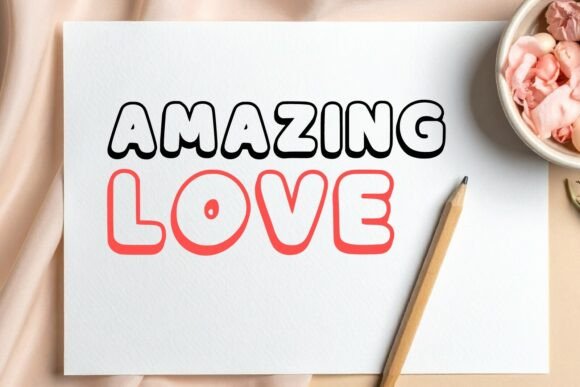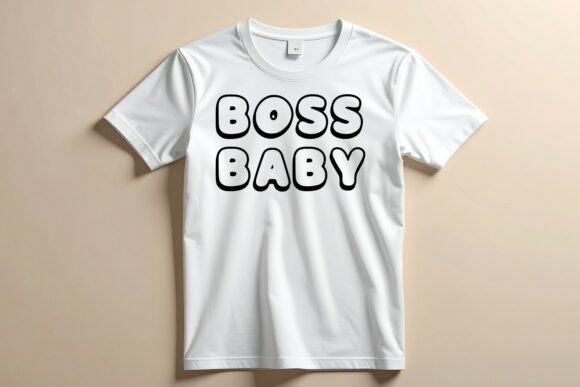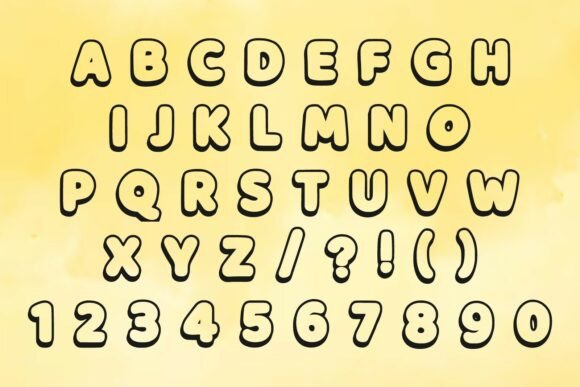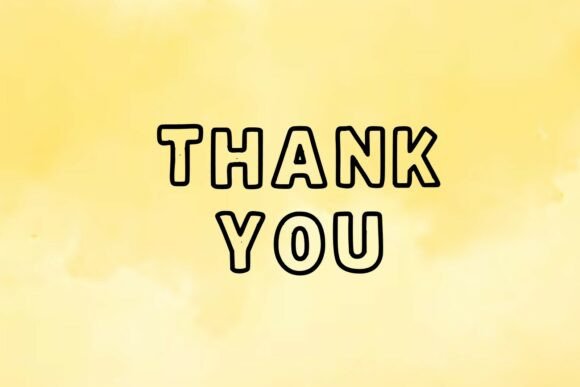
Introduction to Cookies Cartoon Font
Cookies Cartoon is a fun and playful outline display font with rounded, bubbly letterforms inspired by cartoon and comic styles.
Its bold outline design creates a cheerful and friendly look that makes it perfect for eye-catching titles and creative typography This font is ideal for childrenโs designs, cartoon projects, posters, stickers, logos, branding, social media graphics, packaging, and playful headlines.